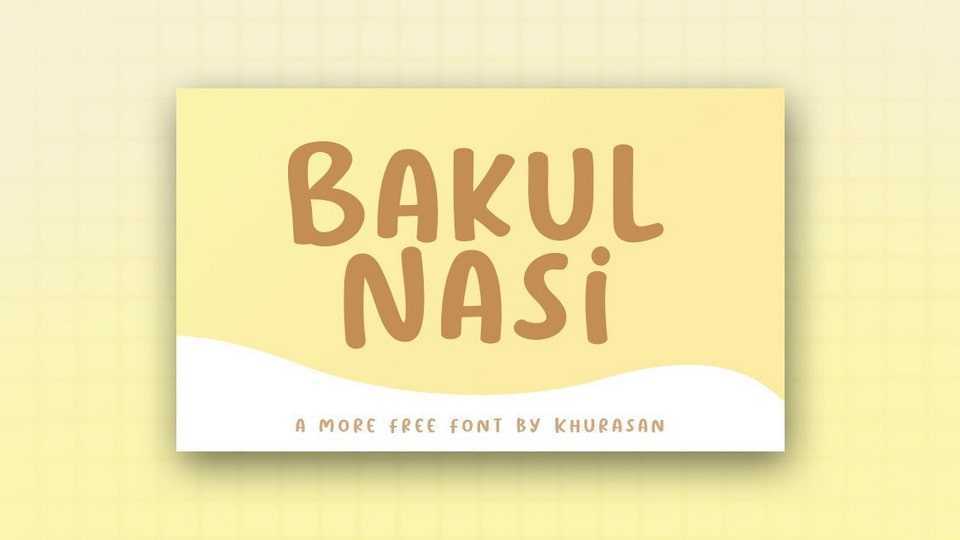
Download Bakul Nasi font, a funny and cute handwritten typeface. With its playful look Bakul Nasi font is perfect for notes, quotes, games, book covers, crafts, and many more.